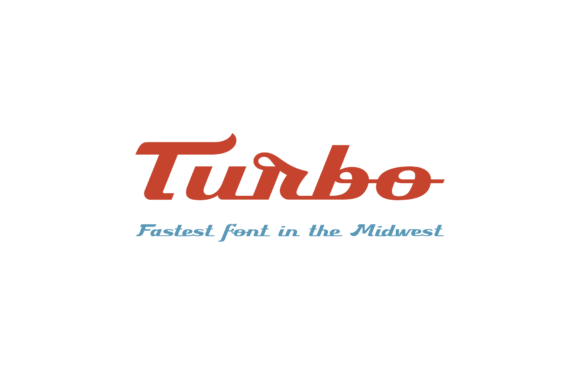
Unleash the Power of Turbo: A Display Font That Ignites Imagination
In the realm of visual expression, Turbo emerges as a beacon of creative brilliance, a font that captivates the senses and propels your designs to new heights. Inspired by the alluring curves and bold strokes of vintage car script lettering, Turbo possesses an innate ability to transport you back in time, evoking the nostalgia and romance of a bygone era.
With its meticulously crafted characters, Turbo exudes an air of sophistication and elegance, lending a touch of timeless grace to your creations. Whether you're crafting eye-catching display posters, designing sleek logos, or seeking to add a touch of vintage flair to your branding materials, Turbo's versatility knows no bounds.
Feel the Thrill of Creative Freedom
Turbo's intuitive design opens up a world of creative possibilities, inviting you to explore the depths of your imagination and manifest your artistic visions. With its PUA encoding, you'll have effortless access to a treasure trove of glyphs and swashes, empowering you to unleash your creativity and inject a unique personality into your designs.
Turbo's versatility extends far beyond the realm of automotive projects. Its inherent charm and adaptability make it an exceptional choice for a diverse range of design genres. From whimsical invitations to captivating social media graphics, Turbo's versatility is a boundless source of inspiration, allowing you to weave your creative magic across a multitude of platforms.
A Masterpiece of Design
Turbo is not merely a font; it's a masterpiece of design, meticulously crafted by the talented artisans at Studio One Four. Their unwavering commitment to detail and passion for excellence is evident in every stroke and curve of this remarkable font, ensuring that it stands as a testament to their artistry and dedication.
As you embark on your creative journey with Turbo, you'll discover a font that not only elevates your designs but also ignites your imagination, propelling you to new heights of creative expression. Let Turbo be your muse, your faithful companion in the realm of visual storytelling, and watch as your designs transform into captivating works of art.